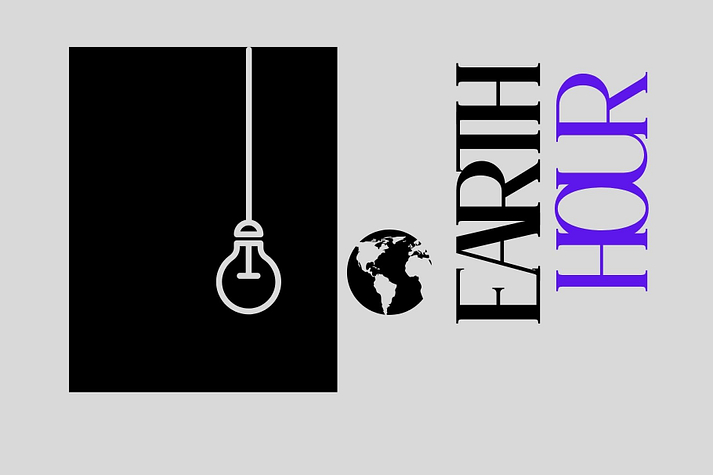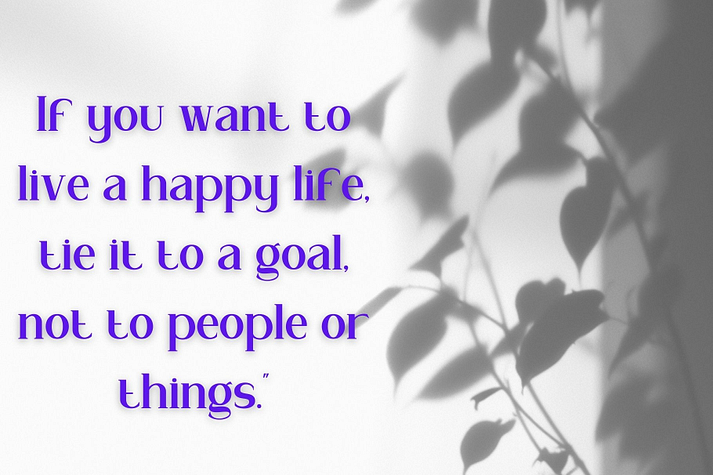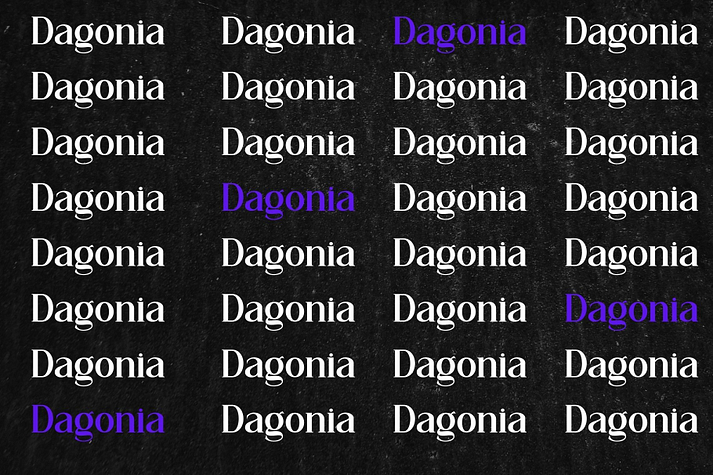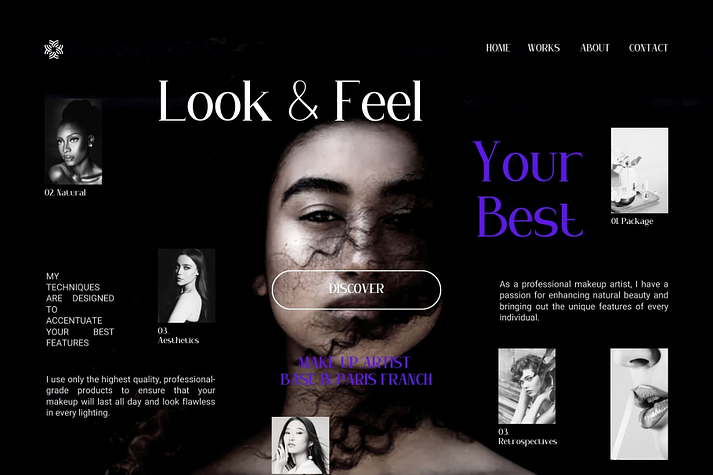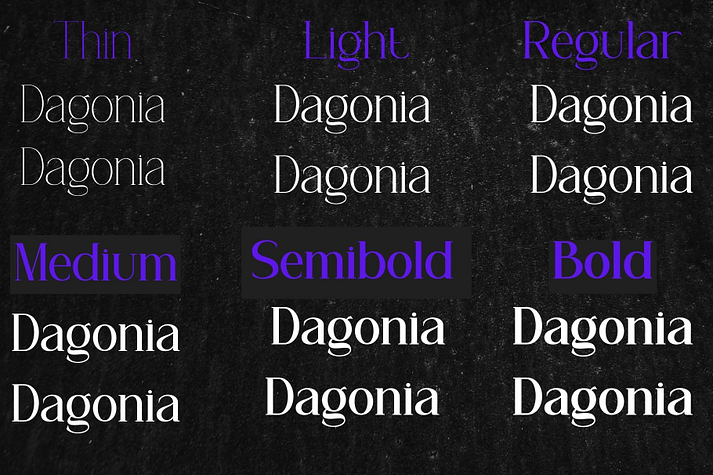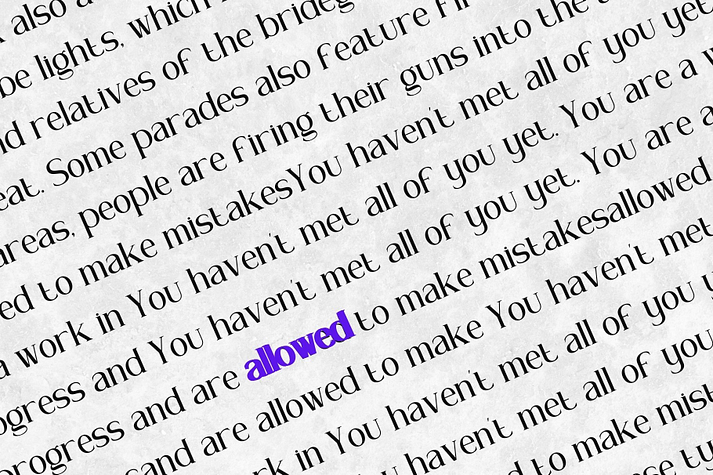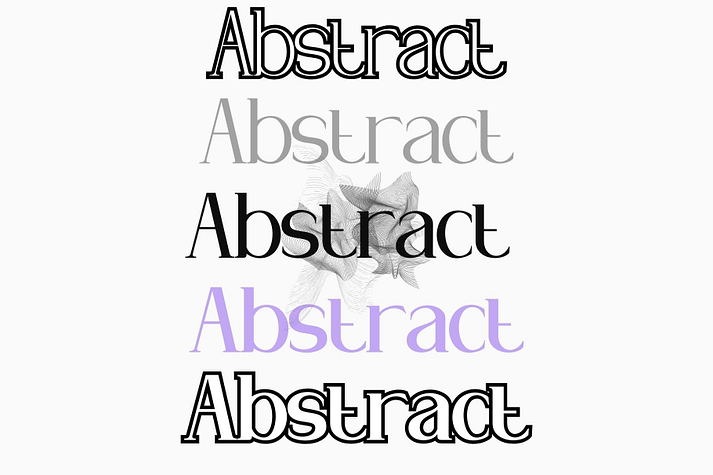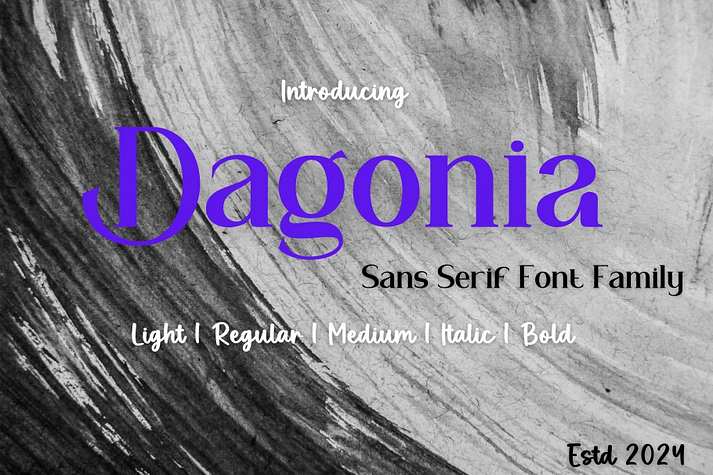
Dagonia
Dagonia is a display serif and serif font family. This typeface has five styles and was published by Aditastudios.
Dagonia Sans Serif is a balanced, smooth, elegant and stylish serif font. He has a beautiful character. It fits perfectly with invitation card designs, company logos, movie titles, movie names, business cards, book titles, brand names and various other designs.